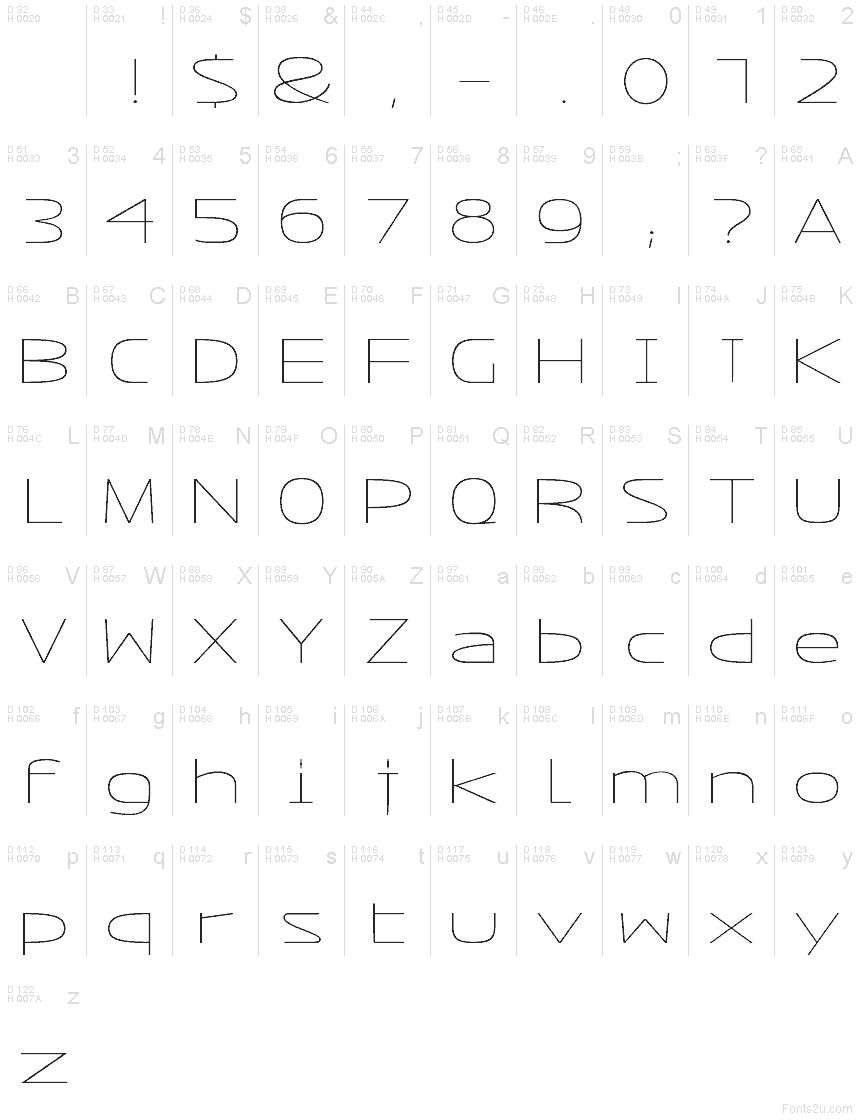
Mash Variable
Mash Variable font by Leonhard Katschner is an expanded light sans-serif of minimalist and geometric style. Modern, elegant, and refined this stylish typeface resembles many popular Bauhaus fonts in its build. It can easily be combined with other fonts but works well on its own both in print and digital mediums.